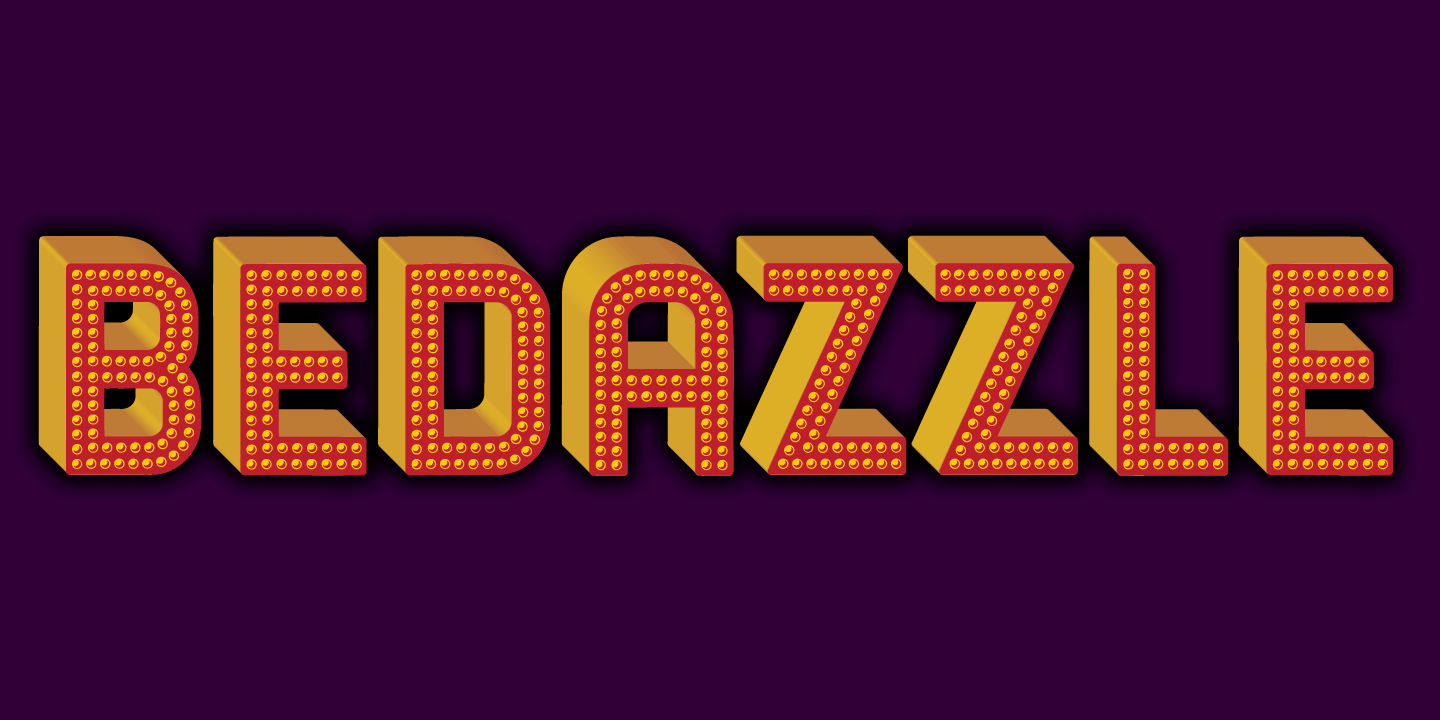
Bedazzle Font Family by Pelavin Fonts
About: With a delicious twinkling in its eye, Bedazzle evokes a theatrical vibe. Filled with a pattern of glowing lights, it offers a festive journey for the eye as well as a tactile ambiance. Two fonts, an ornamented bright plus a solid version provide ample resources to create a variety of inlined, outlined, shadowed and multi-colored displays. Add in Illustrator’s 3D feature to take things beyond the mere surface of the page.